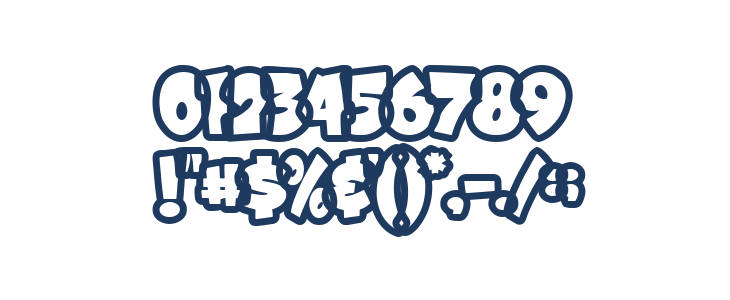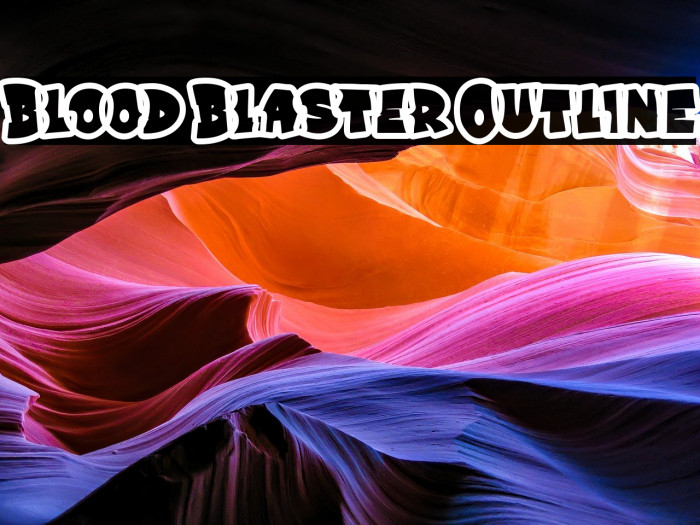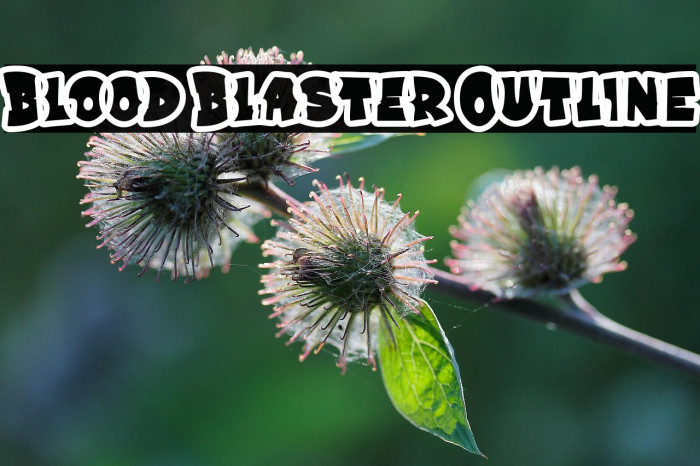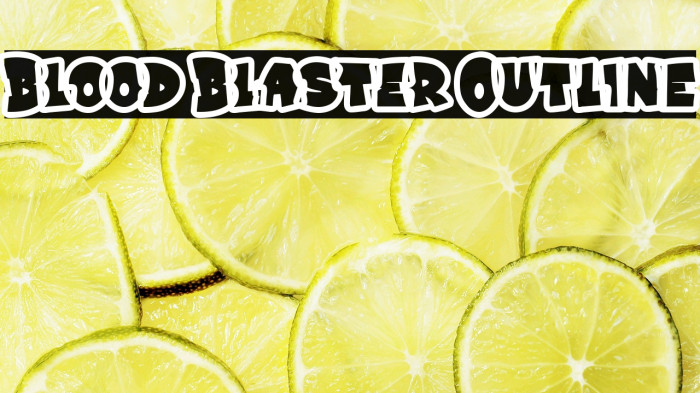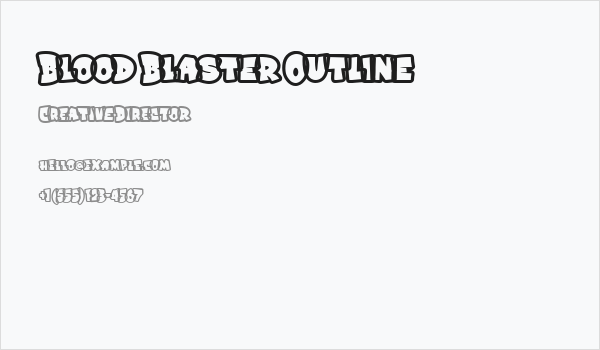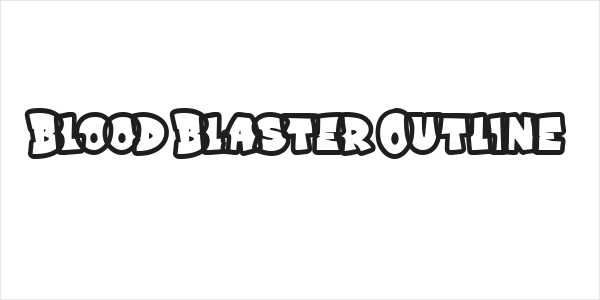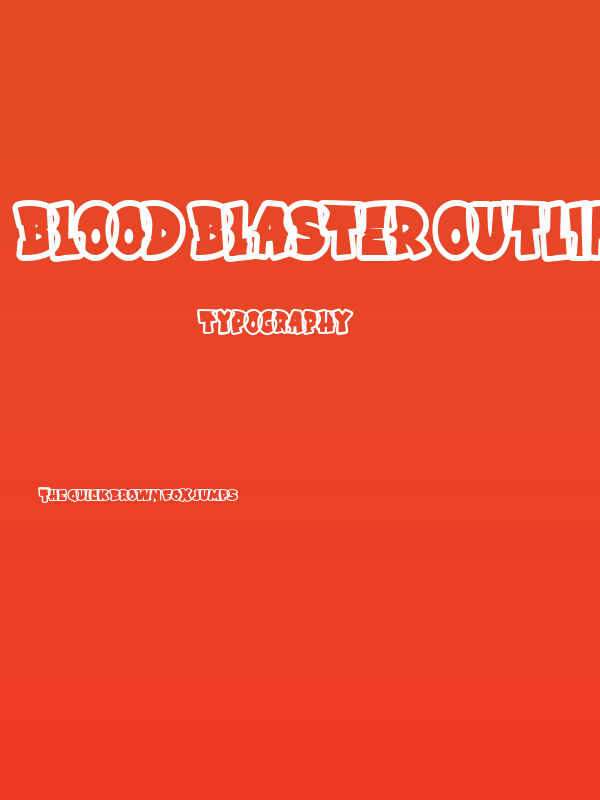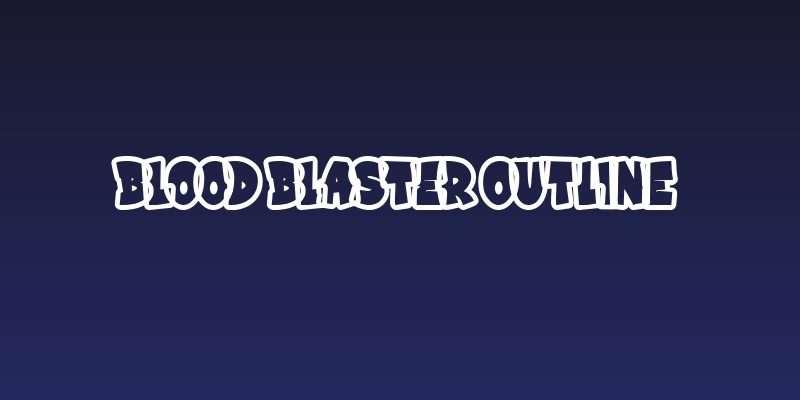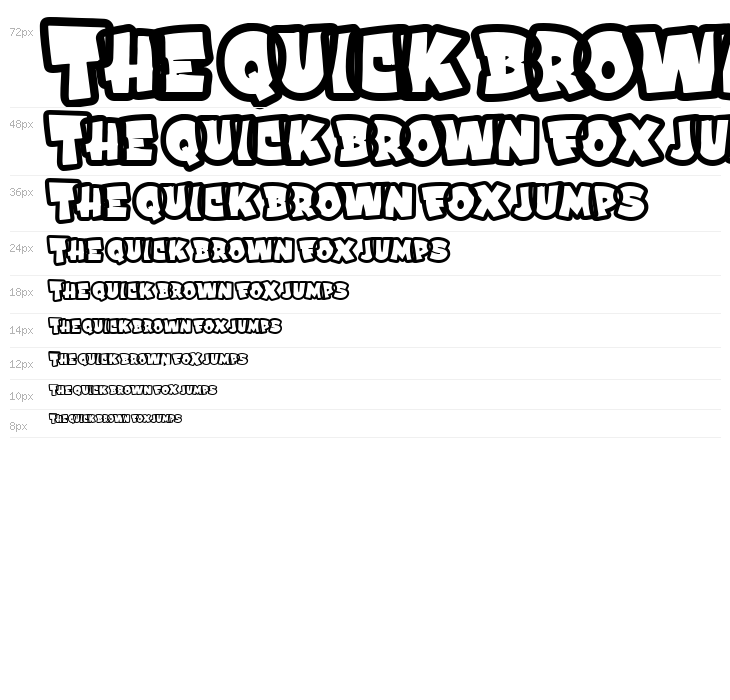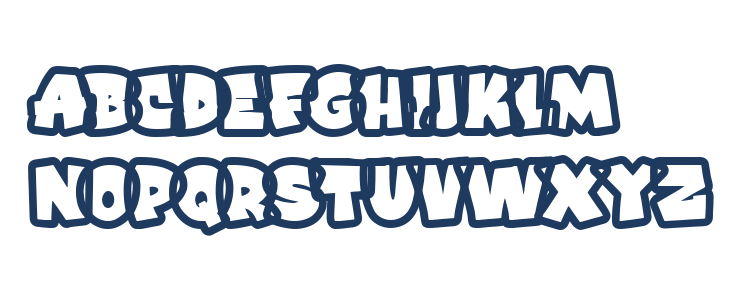
Blood Blaster Outline Font
Blood Blaster Outline Description
This font features a bold, playful outline style with a cartoonish and energetic appearance. The characters are heavily outlined, creating a striking and eye-catching effect. Each letter and number is designed with a thick, uniform stroke that gives it a robust and impactful presence. The font's exaggerated curves and rounded edges contribute to its whimsical and informal look, making it ideal for creative and fun projects. The overall design is consistent across uppercase, lowercase, numbers, and special characters, ensuring a cohesive visual experience.
| Overall Style | Playful, Cartoonish |
| Proposed Projects | Ideal for comic books, children's posters, playful branding, and event flyers. |